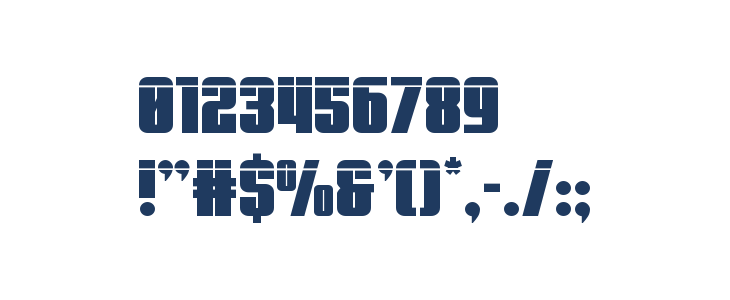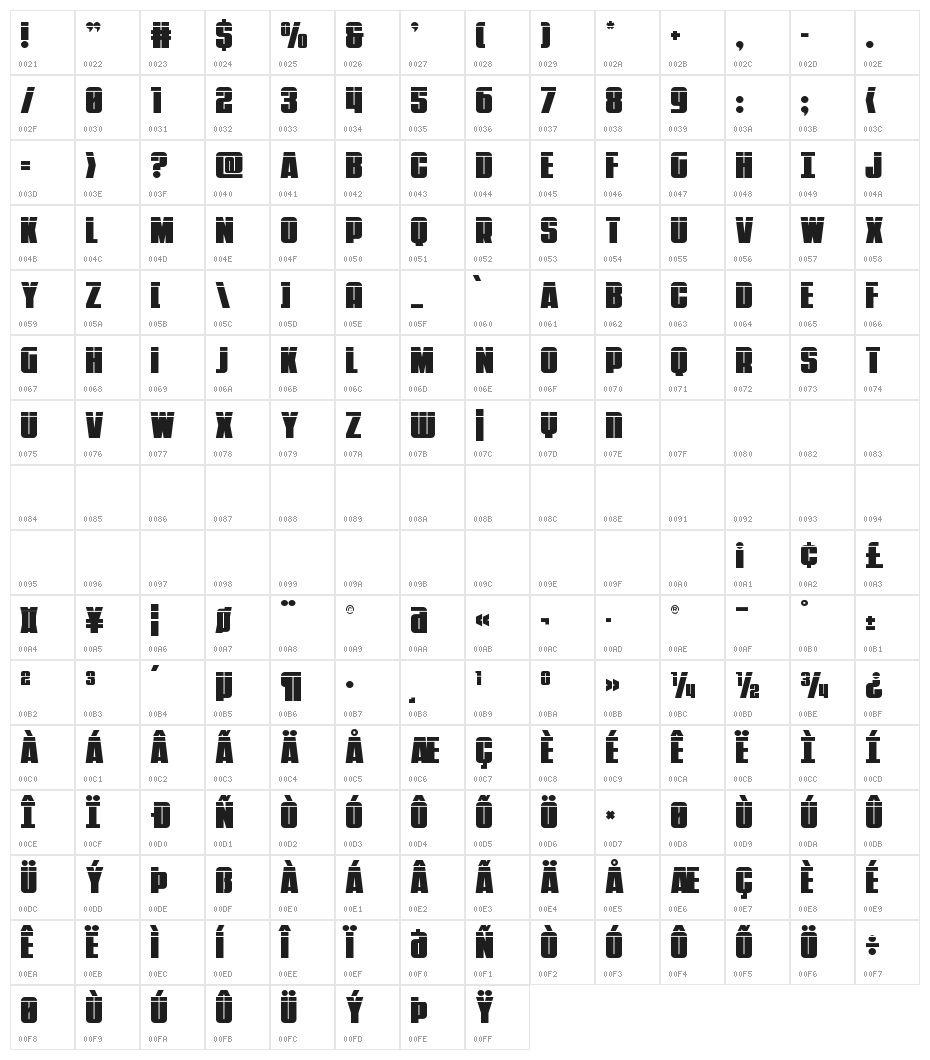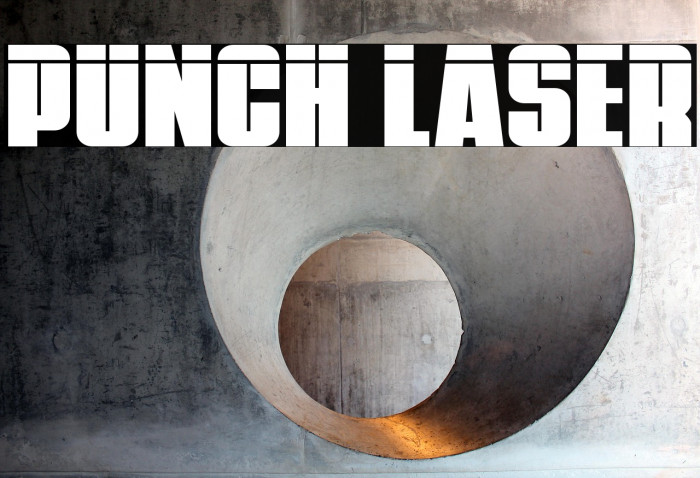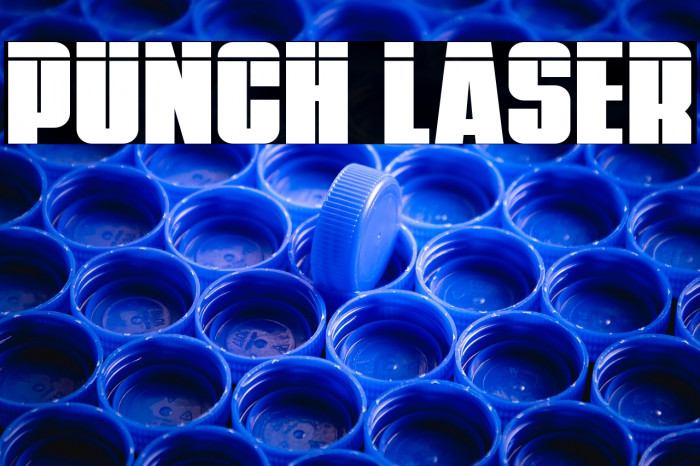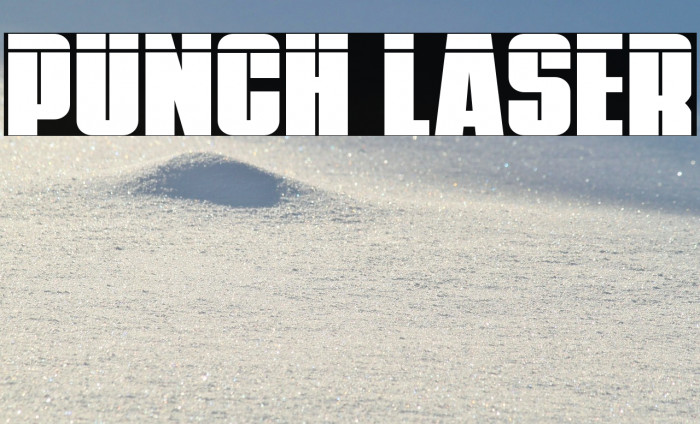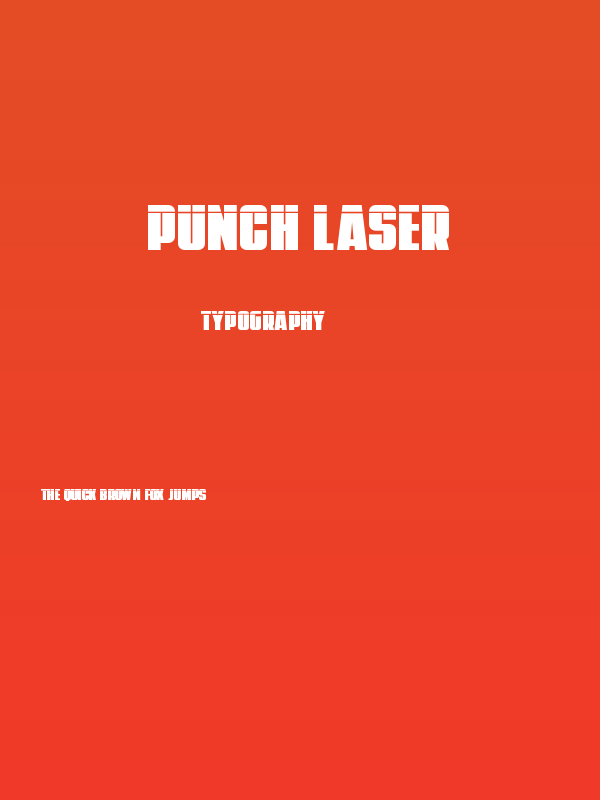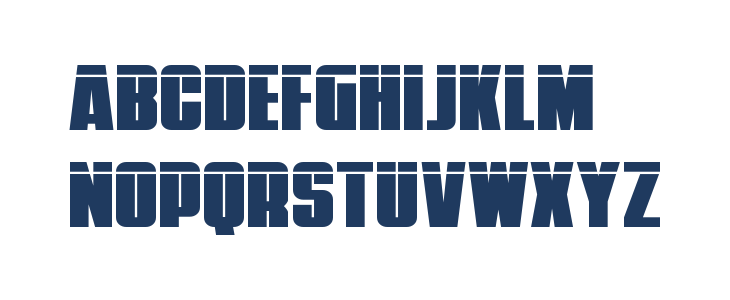
Punch Laser Font
Punch Laser Description
This font exhibits a bold and impactful design, characterized by its strong geometric shapes and solid block-like appearance. The uppercase letters are particularly striking, with a uniform height and width that create a sense of stability and power. The lowercase letters maintain the same robust style, ensuring consistency throughout the typeface. Numbers and special characters are crafted with the same attention to detail, making them easily legible and visually appealing. The overall design is reminiscent of industrial or futuristic themes, making it ideal for projects that require a modern and assertive look.